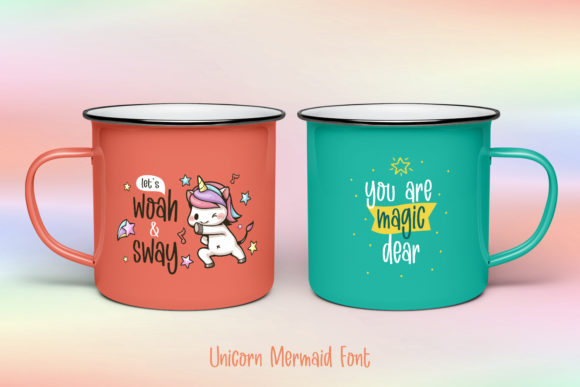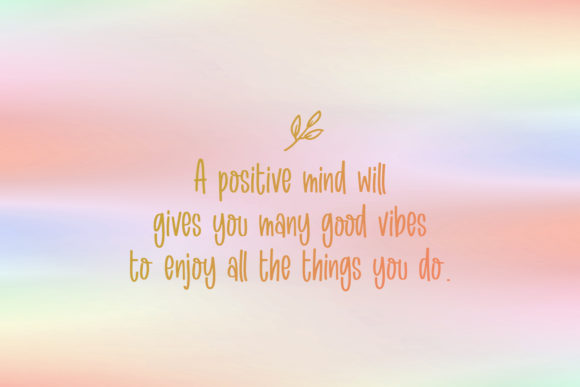
Unicorn Mermaid Font
db-ku.com - Script & Handwritten -- Unicorn Mermaid is a sweet and friendly handwritten font. Its natural and unique style makes it incredibly fitting to a large pool of designs. The only limit is your imagination!